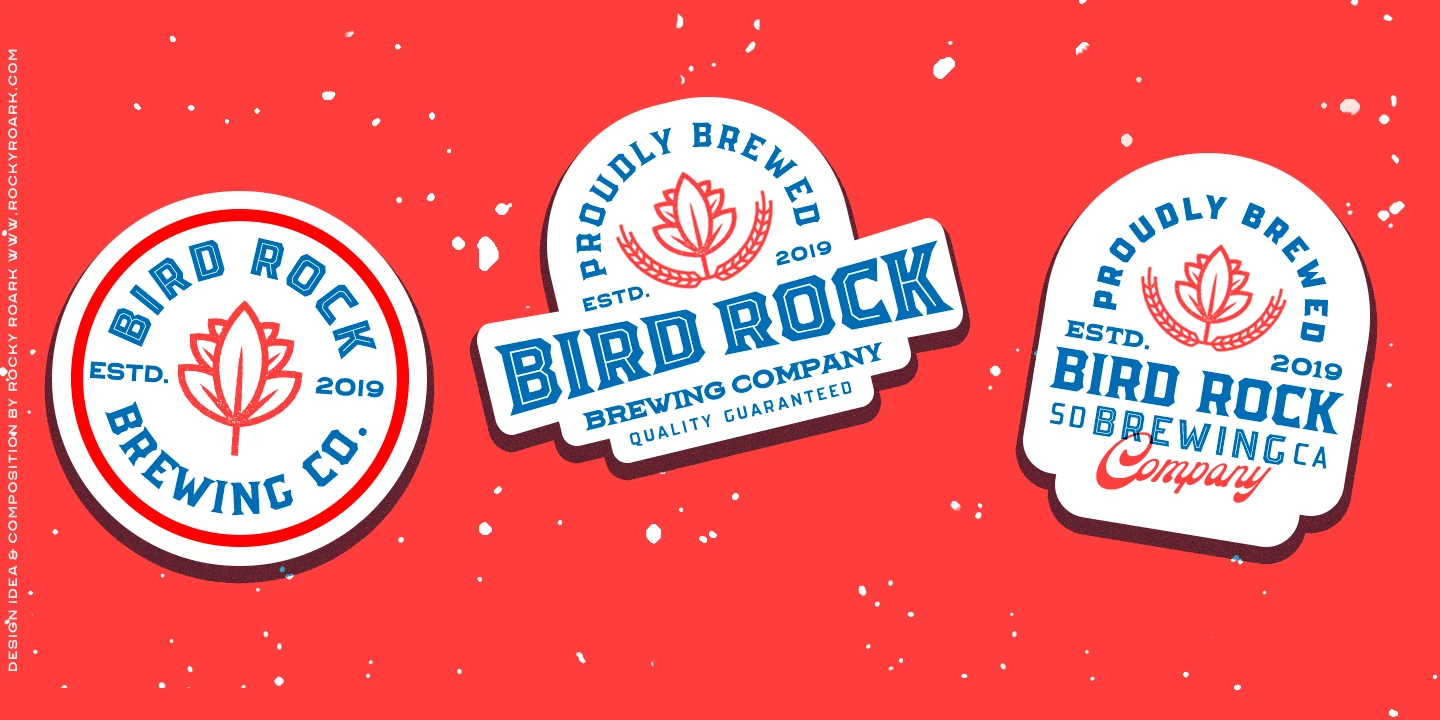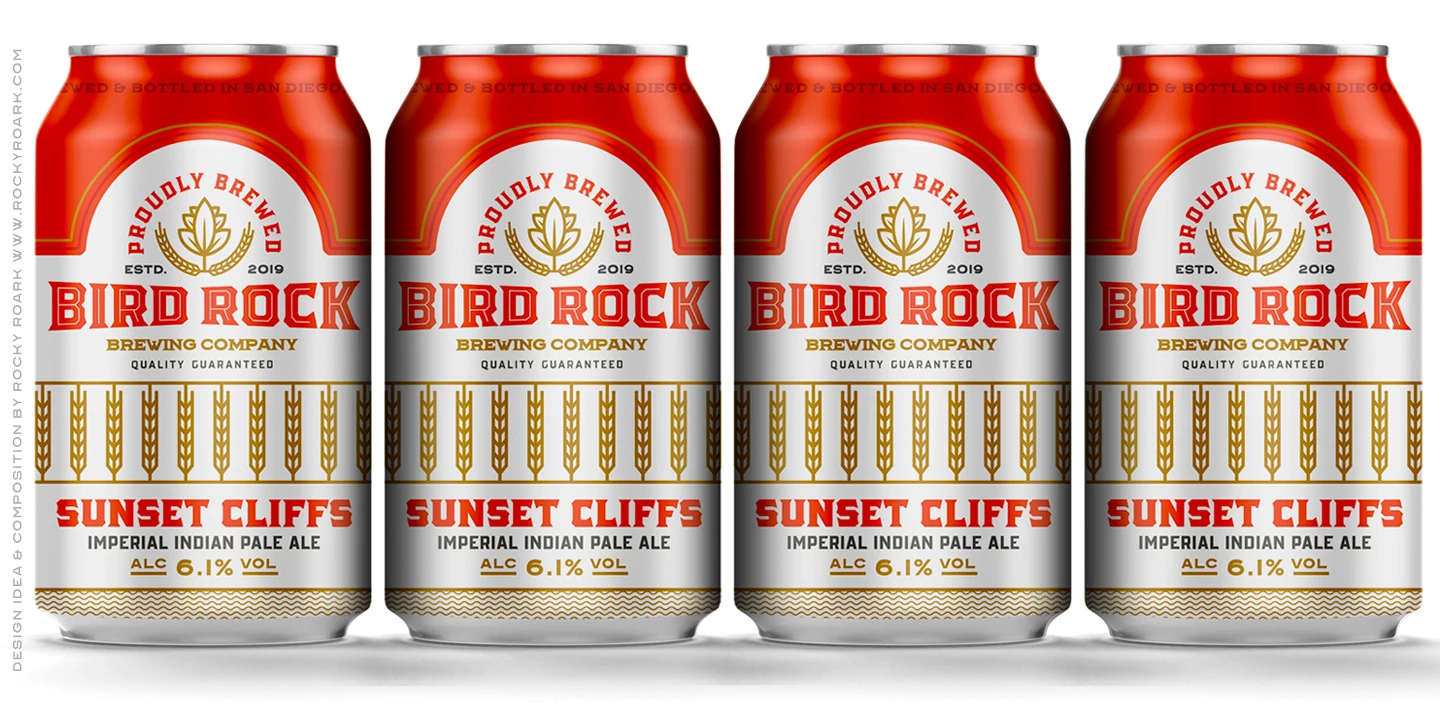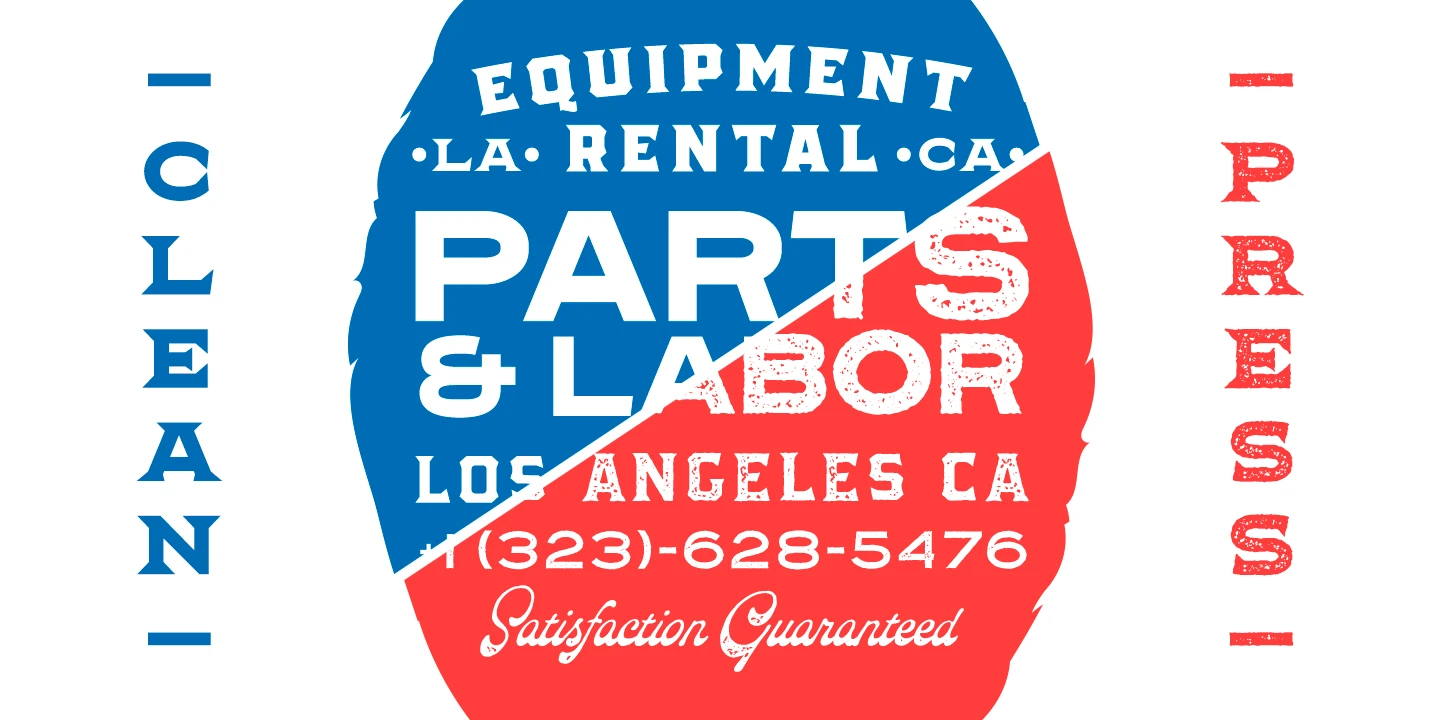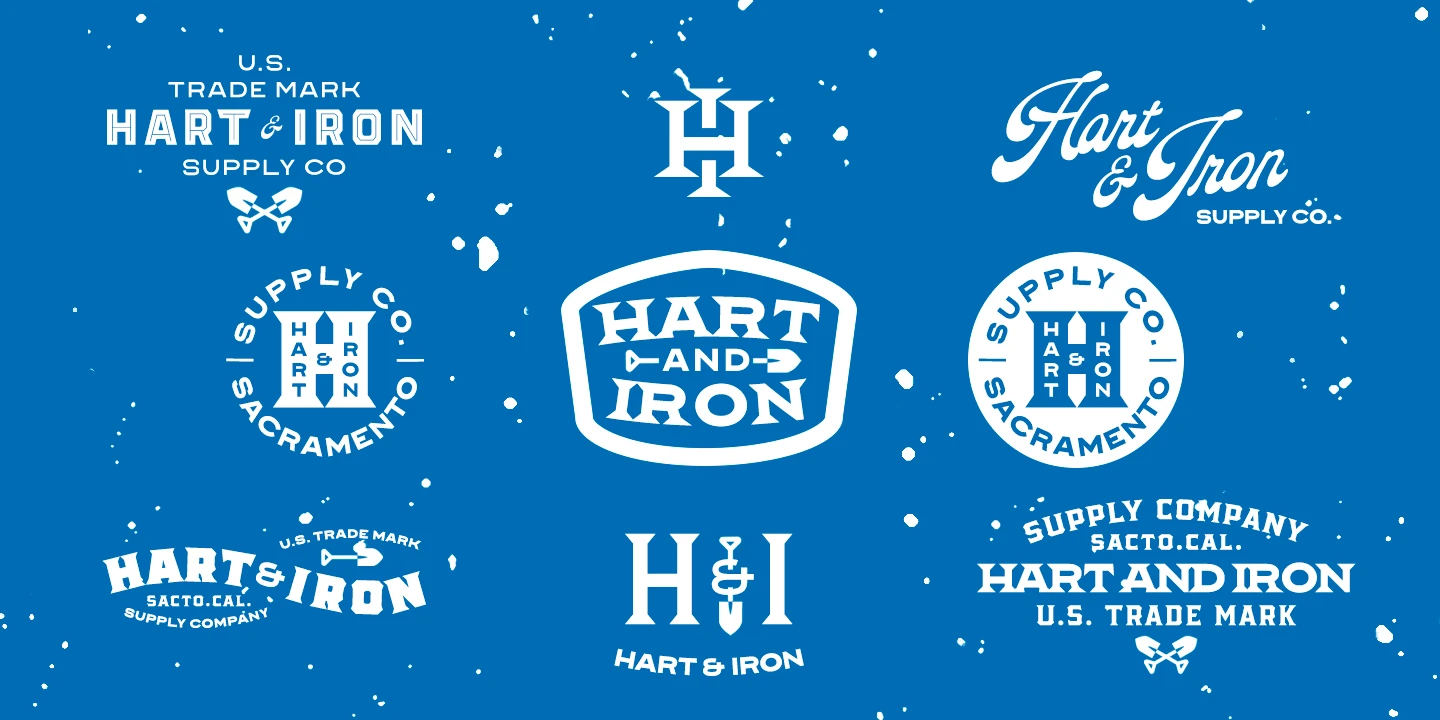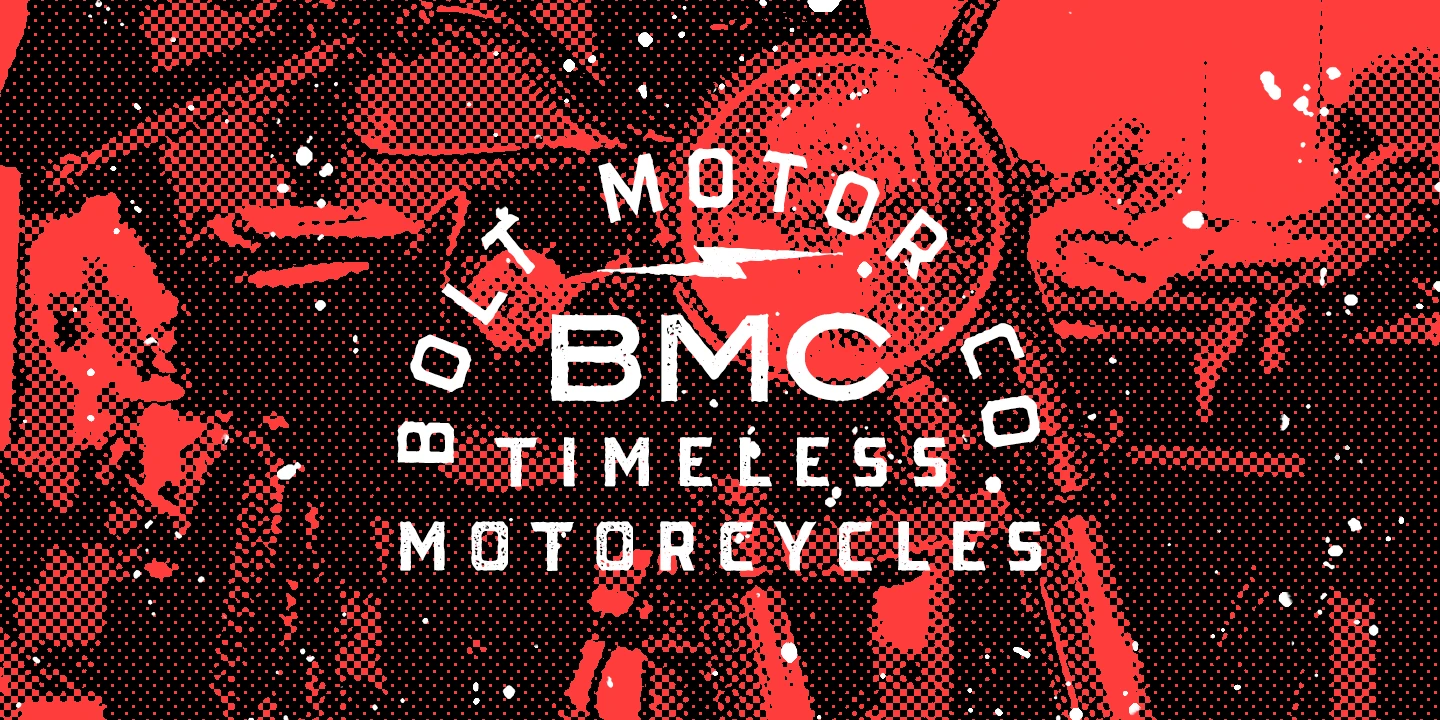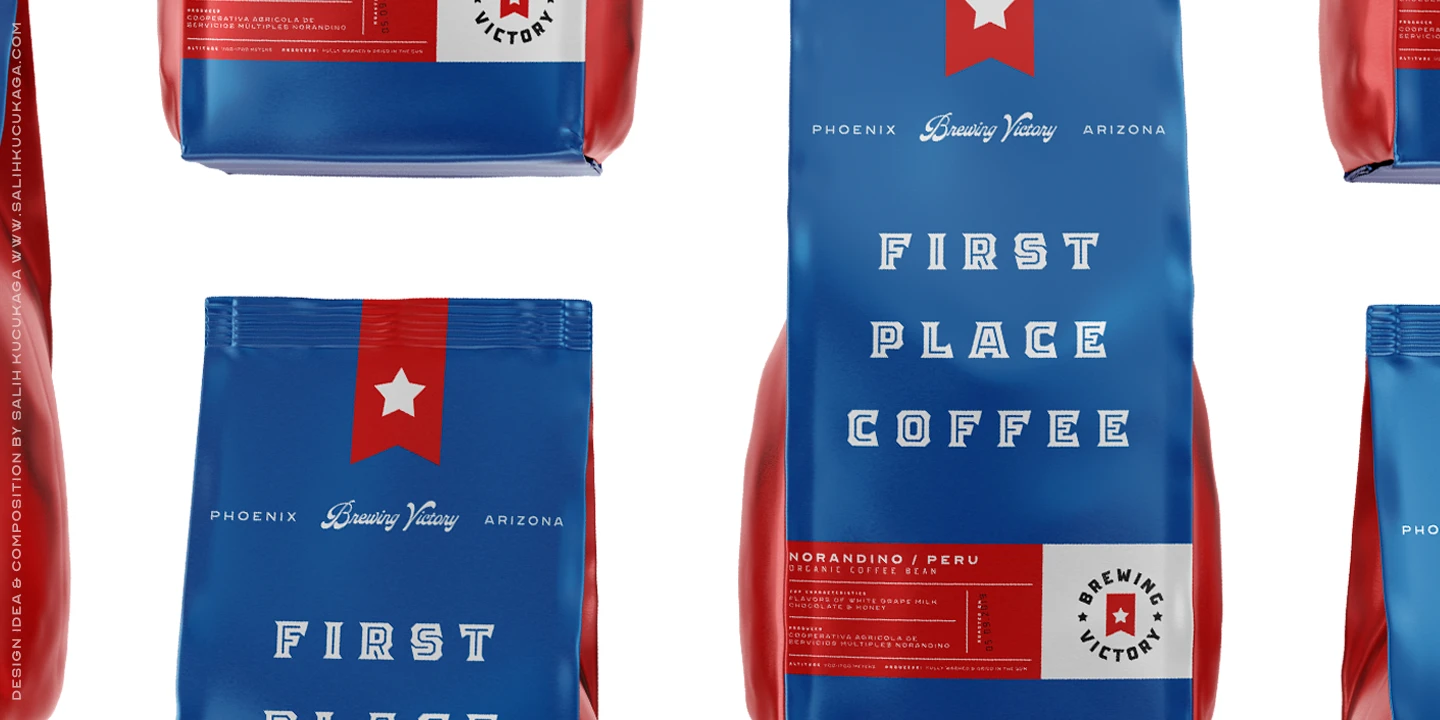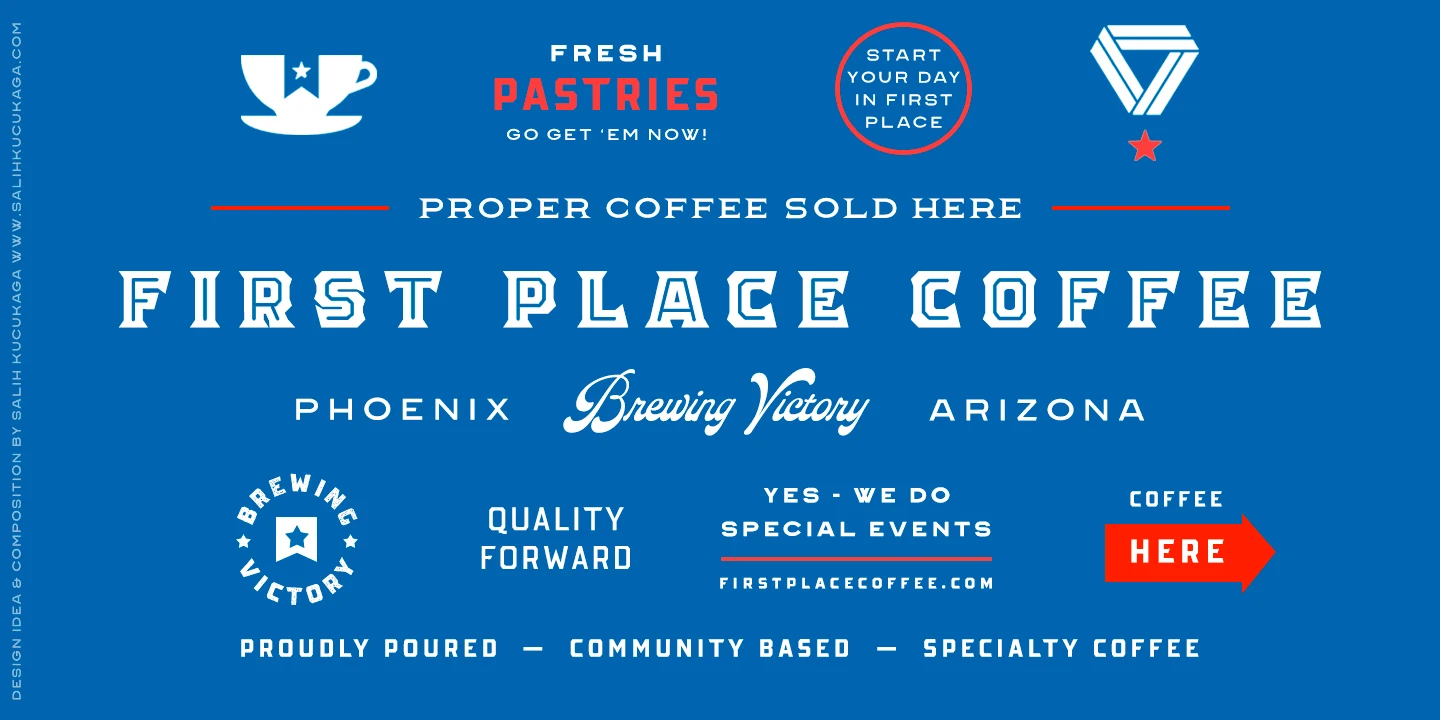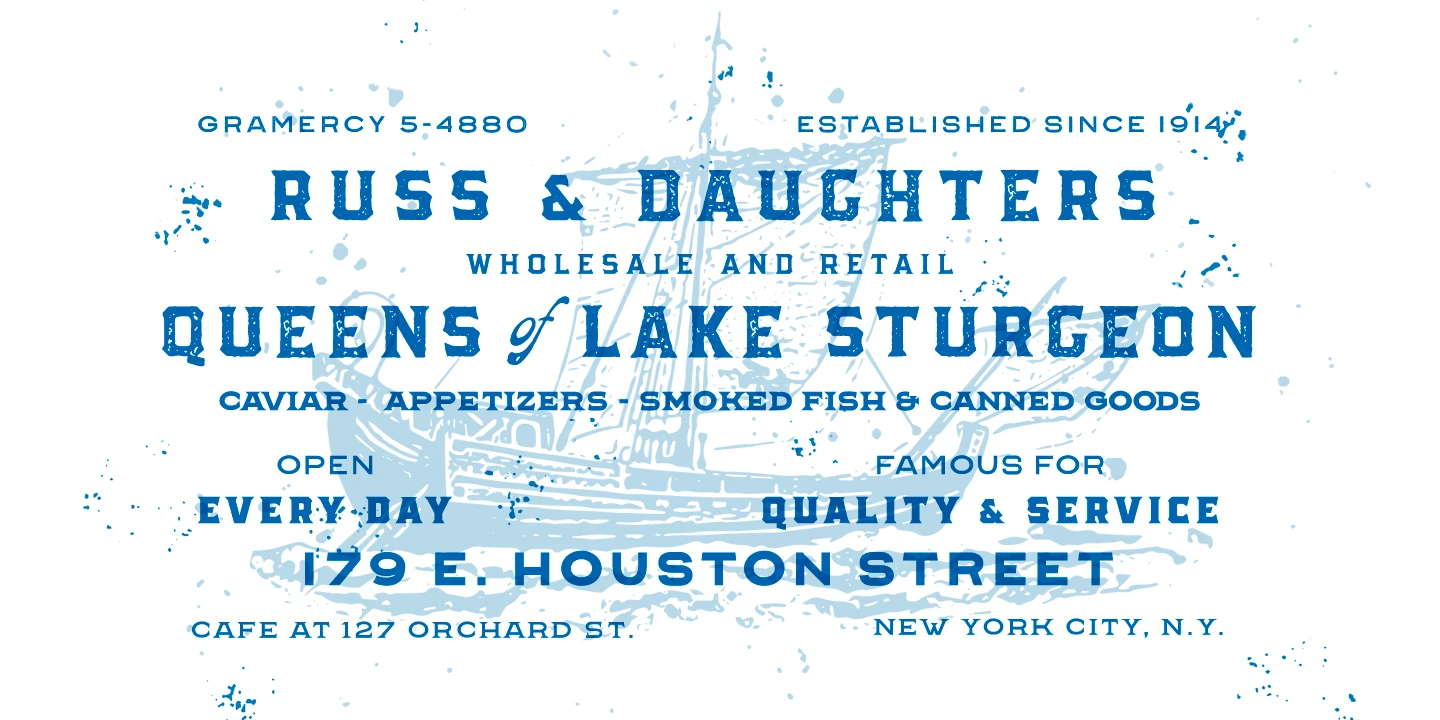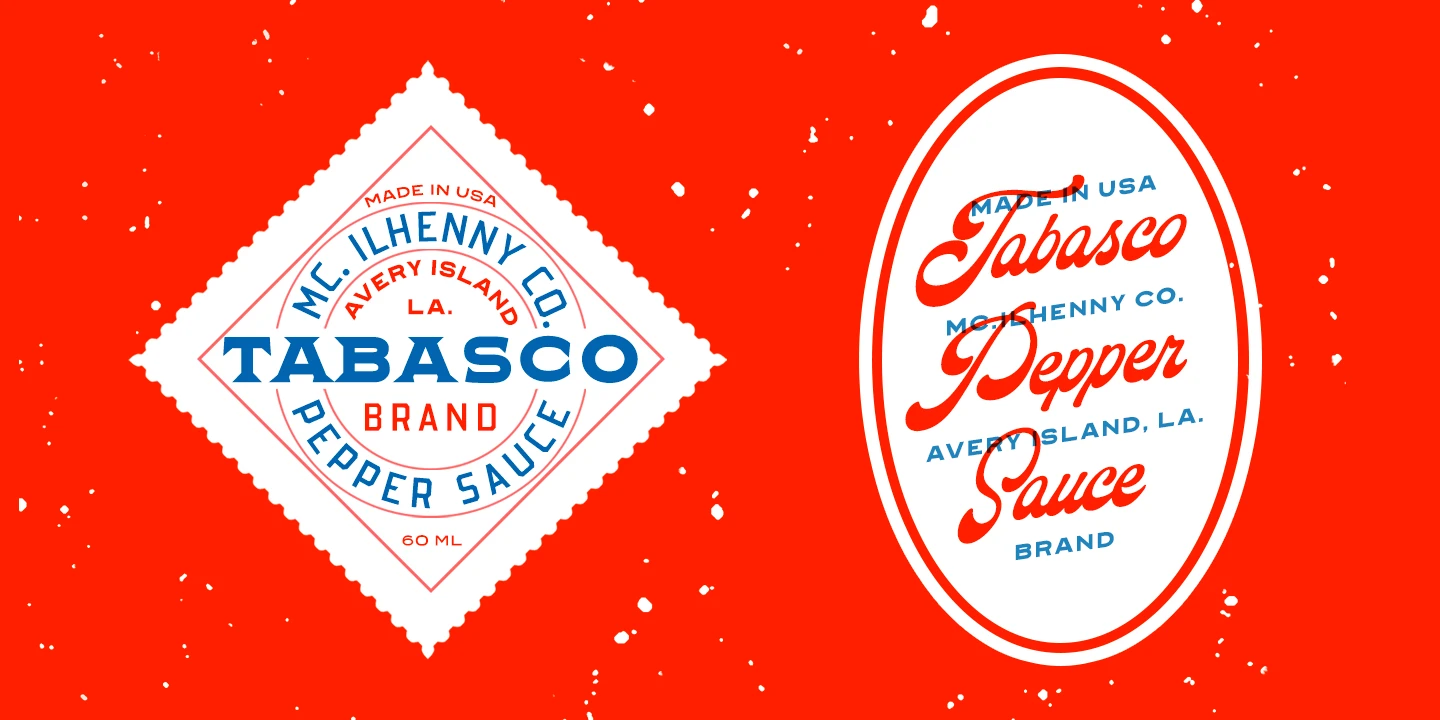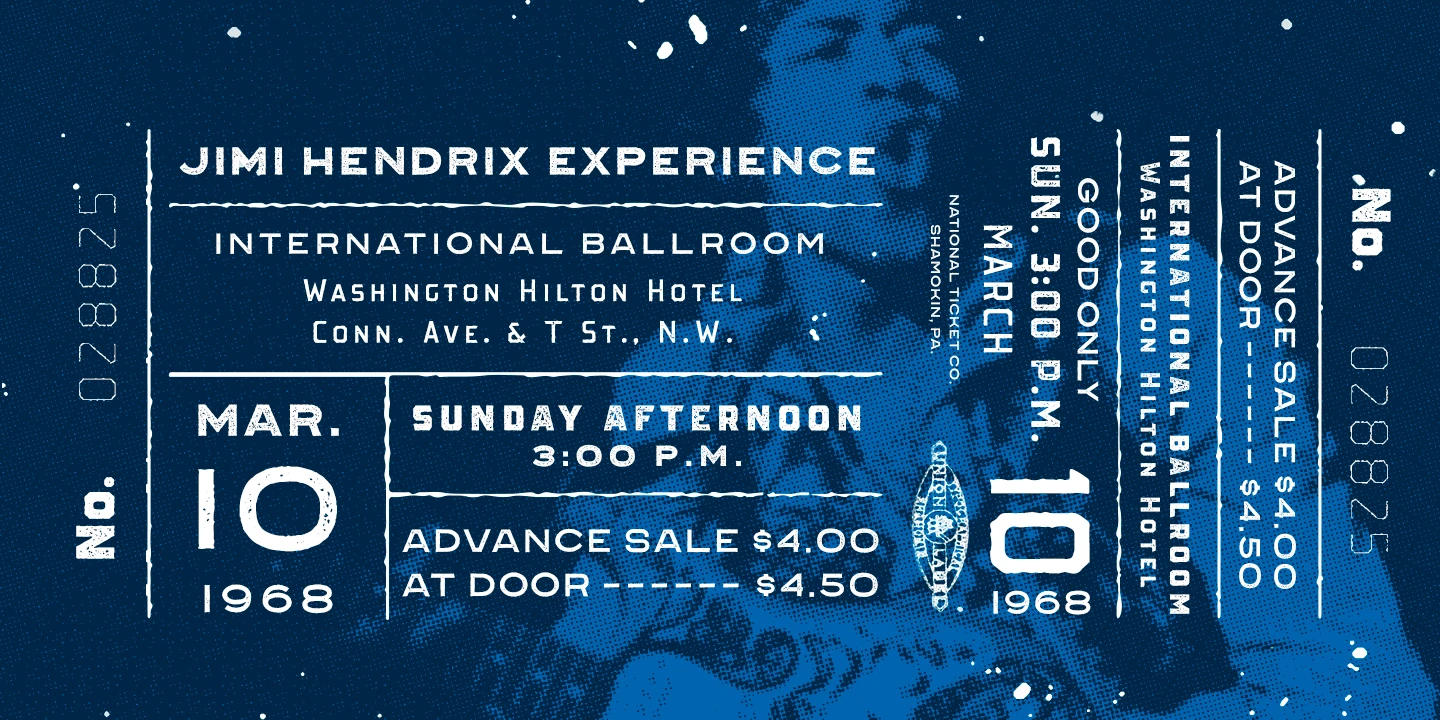
Pretender Collection • 34 styles
Pretender is a vintage-inspired font collection built on the spirit of American sign painting and classic package design. With 34 fonts in total, it features a wide variety of styles, including sans-serifs, and a playful rounded script. The set includes all-caps fonts in multiple weights, expanded widths, inline styles, and textured Pressed versions for added character.
Each typeface is designed to work seamlessly alone or in combination, making it highly adaptable for packaging, branding, merchandise, signage, posters, menus, and more. Pretender offers a complete typographic toolkit for designers looking to capture a bold, nostalgic feel with a professional edge.
• Stylistic Alternates
• Stylistic Sets